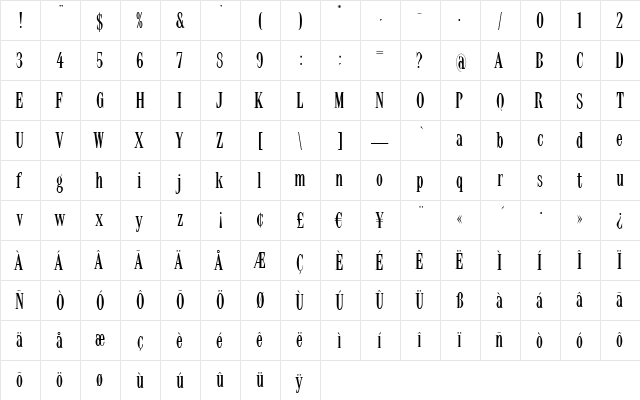
LatinSmall Regular Font Preview
LatinSmall Regular
Design Context for LatinSmall Typeface
LatinSmall offers clean, dependable letterforms without strong stylistic allegiance, making it a practical choice for designers who need flexibility.